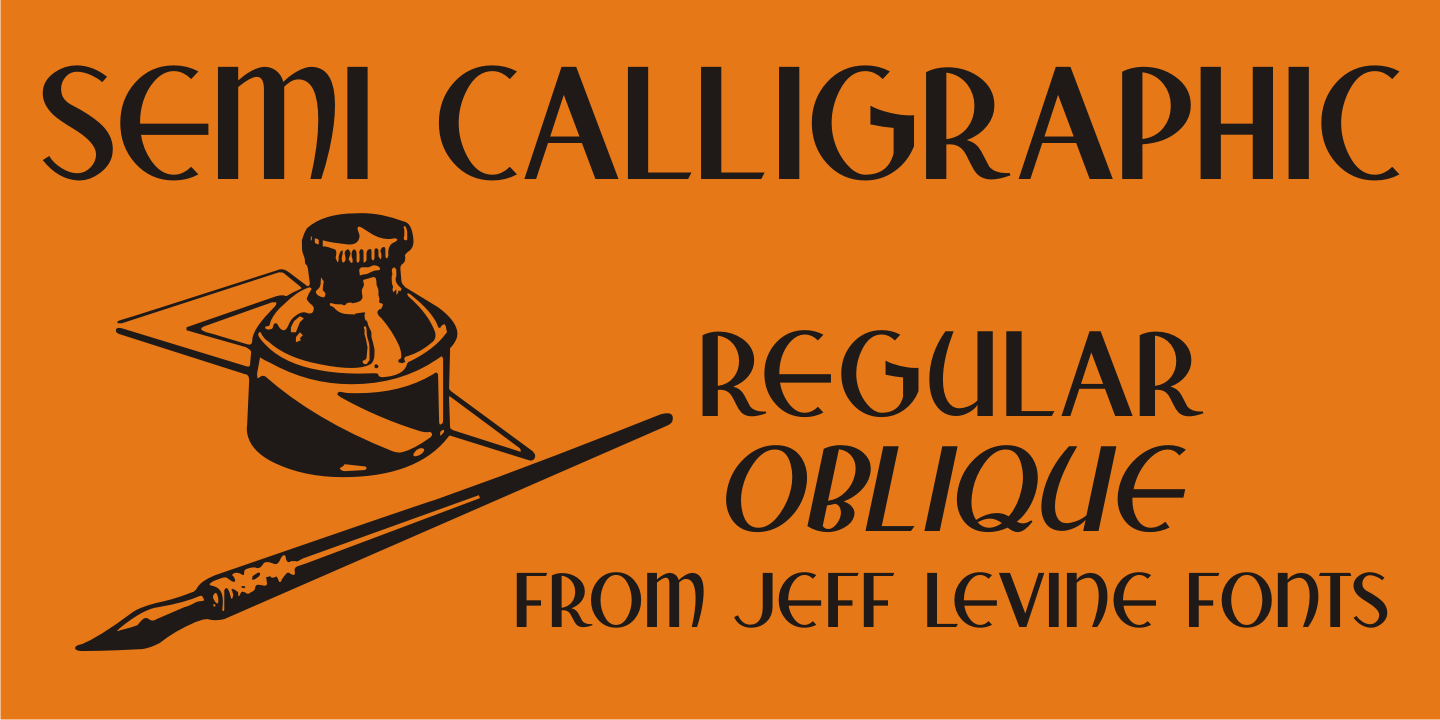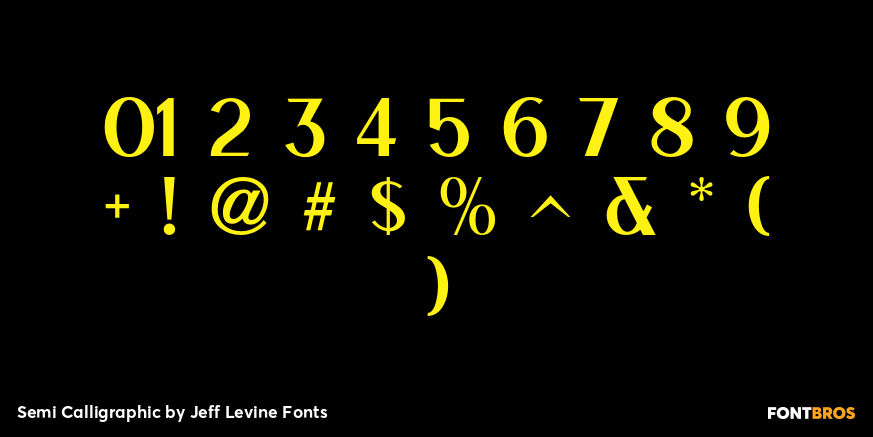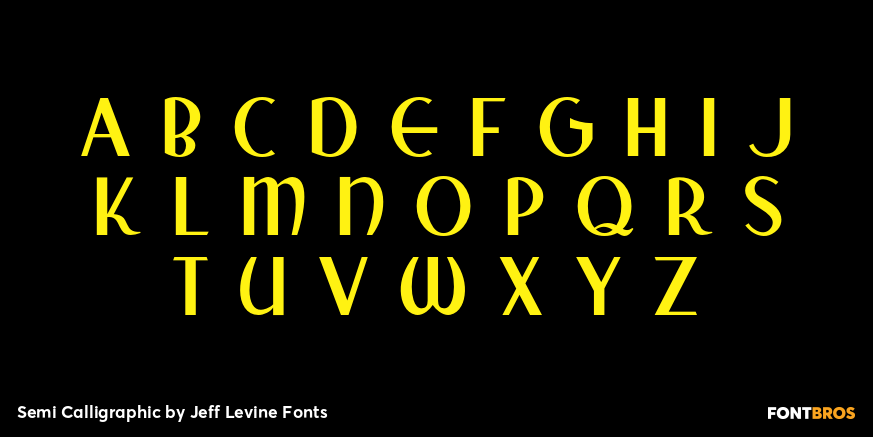
Semi Calligraphic
A 1950 reissue of the 1934 tune 'With My Eyes Wide Open I'm Dreaming' had the title of the sheet music hand lettered in a semi-calligraphic sans serif design.
This became the model for the appropriately named Semi Calligraphic JNL, which is available in both regular and oblique versions.